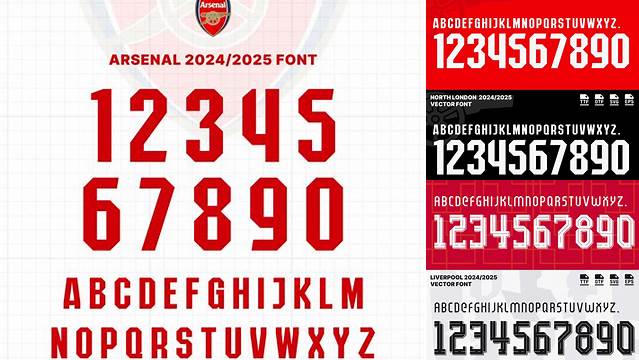
Arsenal Font: The Digital Arsenal's Typography
Arsenal Football Club, like any major brand, understands the power of consistent branding. The Arsenal font is a key element of that brand identity. It's used across all sorts of media, from the club's website and social media to merchandise and stadium signage. This ensures a cohesive and recognizable look. The official Arsenal font is a crucial component of their visual identity, designed to communicate the club's values, history, and forward-thinking approach. The choice of a specific typeface is not arbitrary. It is a deliberate decision, carefully considered to align with the club's overall brand strategy and enhance its visual appeal across various platforms. The Arsenal font reflects the club's commitment to excellence, professionalism, and a modern aesthetic. This font is used extensively in all official communications, from match day programs and website updates to social media graphics and marketing materials. The goal is to create a unified and easily recognizable brand presence that resonates with fans worldwide. This ensures that the club's message is consistently conveyed. The font's usage extends to various applications, including but not limited to, team jerseys, promotional materials, and digital interfaces, which enhances the visual identity of the club. By maintaining a consistent visual identity, the club reinforces its brand recognition and strengthens its connection with fans and partners. The design of the Arsenal font is likely to reflect the club's core values, like tradition, innovation, and excellence. These fonts are carefully chosen to reflect the team’s personality. This attention to detail helps create a strong brand identity that resonates with fans and stakeholders. The typeface often encapsulates the history, values, and aspirations of the club. Therefore, the choice of the Arsenal font is a significant aspect of the overall brand strategy.
In today's digital age, maintaining a consistent brand image across all platforms is more important than ever. From the club's official website and social media channels to its merchandise and advertising campaigns, the Arsenal font plays a crucial role in ensuring that every communication reflects the club's identity and values. The font is not just a visual element. It's a cornerstone of the club's identity. The font choice is an important consideration for the overall visual branding, as it conveys the personality, values, and ethos of the club, and it also enhances brand recognition and consistency. By carefully selecting and consistently using a specific typeface, Arsenal FC can establish a strong brand presence and build a solid connection with its fanbase, ensuring that their brand is easily recognizable and memorable in all media formats. This also allows for a cohesive visual experience across all touchpoints. Using a consistent typeface creates a seamless experience that strengthens brand recognition and allows the club to communicate its identity, values, and personality effectively. The use of the Arsenal font is a key element in the club's branding strategy.
Arsenal Font Styles: Exploring the Variations
When we talk about the Arsenal font, it's not always a single, monolithic typeface. Often, there are different styles and weights used to provide versatility. You might find regular, bold, italic, and condensed versions, each serving a specific purpose. For instance, a bold font might be used for headlines, while a lighter weight is perfect for body text. The Arsenal font family offers a range of styles to suit various design needs. These may include regular, bold, italic, and condensed versions. Each style is carefully crafted to provide versatility in design applications. This enables designers to create engaging and informative layouts for various purposes. The font variations can be used to create visual hierarchy, to emphasize key information, or to add a touch of sophistication to a design. Different styles can serve unique purposes. This versatility is critical for maintaining a consistent brand identity while allowing flexibility in creative expression. The availability of various styles lets designers highlight important elements and improve readability. Using different weights and styles, designers can effectively communicate the brand's messages across different platforms. The wide range of font styles also helps create engaging visual content, making it easier for the audience to understand and interact with the brand.
Each variation is designed to complement the others, ensuring a cohesive and visually appealing brand identity. The use of various styles is crucial for creating a visually appealing and functional design. This could include using different weights and styles to achieve a balanced layout. Using a range of styles helps the design look dynamic and professional. The availability of different font styles allows for a broad range of design applications, ensuring versatility.
Arsenal Font Alternatives: Free Fonts That Resemble It
If you're struggling to find the official Arsenal font or are looking for free alternatives, don't worry! There are many similar fonts that capture the same modern, sporty aesthetic. Researching and finding alternative fonts can save you time and money. Many font designers create typefaces that are inspired by popular styles. Look for fonts that have a clean, geometric design with a strong, bold presence. These fonts often feature consistent letterforms and excellent readability, making them ideal for sports-related designs. Consider the font's weight, style, and overall design. Some fonts to look out for include those with a similar sans-serif style. These fonts will provide a look and feel close to that of the official Arsenal font. Other options you can explore include fonts with rounded edges and modern, clean designs. There is a vast array of fonts that can provide the look you’re aiming for. Researching the alternatives is a great way to achieve your desired look.
Arsenal Font in Use: Design Inspiration
Seeing the Arsenal font in action can give you some great ideas. Look at how the club uses it on their website, in their social media posts, and on their merchandise. Pay attention to the contrast, the layout, and how the font complements the overall design. You can find great design inspiration by studying the club’s use of the font. By observing how the font is integrated into various design elements, such as headlines, body text, and logos, you can get a better understanding of how to use it effectively in your projects. Also consider the use of color, imagery, and other design elements, which can help enhance the font's impact and create a cohesive design. Learning from the pros can help you get creative ideas. Consider the balance of text and graphics, and how they work together to create a visually appealing design. This includes how the font is applied to different media, such as websites, print materials, and digital platforms. By studying the use of the Arsenal font, you can gain insight into the principles of effective design. Analyzing how the font is used will give you ideas on how to implement it in your own projects.
Arsenal Font for Logos: Creating a Powerful Brand
The Arsenal font, or a similar typeface, is a critical element in creating a powerful brand logo. The font conveys the club's personality, history, and aspirations. The choice of the font impacts the overall feel of the logo. A clean and modern font communicates professionalism and a forward-thinking attitude, while a more traditional font might evoke a sense of history and heritage. Consider how the font complements the logo's other elements, such as the crest or any accompanying imagery. By carefully selecting the font, designers can ensure that the logo effectively represents the brand's values. A well-designed logo will include a cohesive visual identity. The font choice significantly affects the final result, and it also contributes to the logo's memorability. It plays a vital role in conveying the club's identity and creating a strong connection with its fans. Therefore, the Arsenal font, or a similar typeface, is a key component in crafting a powerful brand identity for the club. A well-chosen font helps create a logo that resonates with fans and stakeholders.